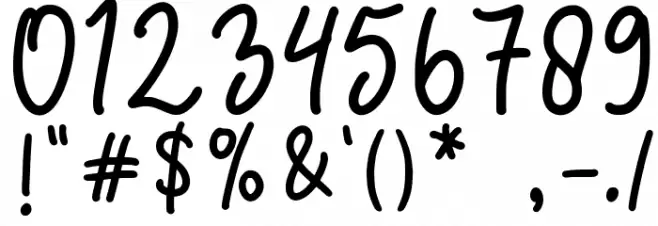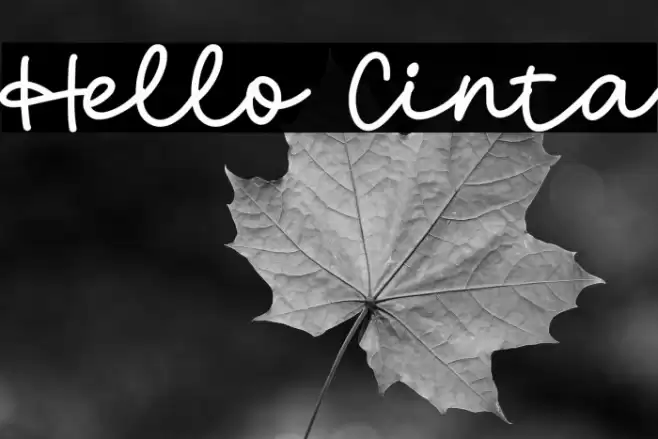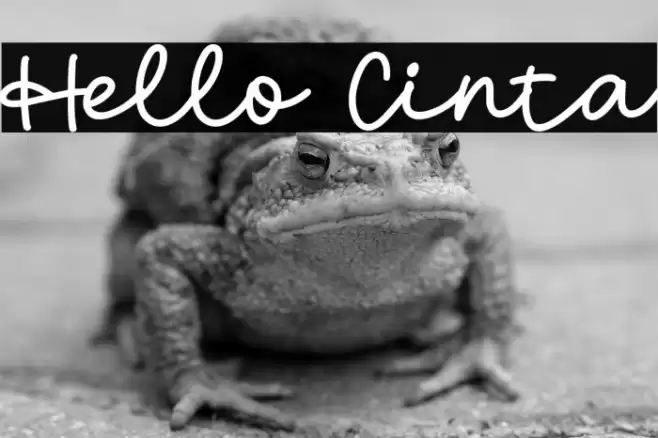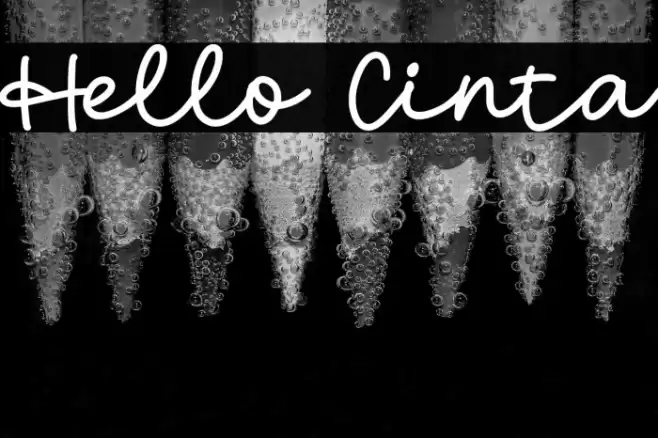
Hello Cinta Font
Hello Cinta Description
This font features a playful and casual handwritten style, characterized by its fluid and connected letterforms. The uppercase letters exhibit a smooth flow with slight variations in stroke width, giving it a dynamic and lively appearance. The lowercase letters maintain a consistent rhythm, enhancing readability while preserving the font's informal charm. Numbers are bold and slightly larger, ensuring clarity and visibility. Special characters are integrated seamlessly, maintaining the overall aesthetic. This font's organic and friendly nature makes it suitable for projects that require a personal touch.
| Overall Style | Casual |
| Use Case | Logos, Headlines, Invitations |
| Proposed Projects | Ideal for greeting cards, invitations, personal branding, and social media graphics. |